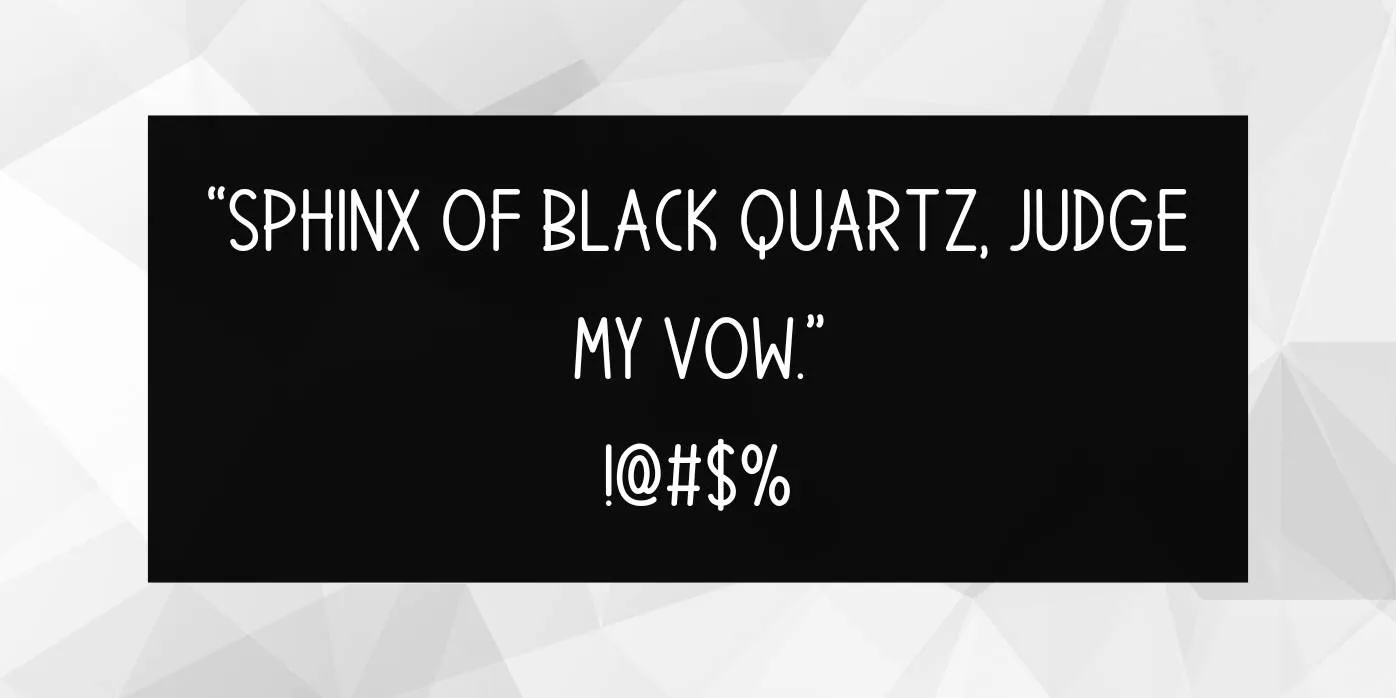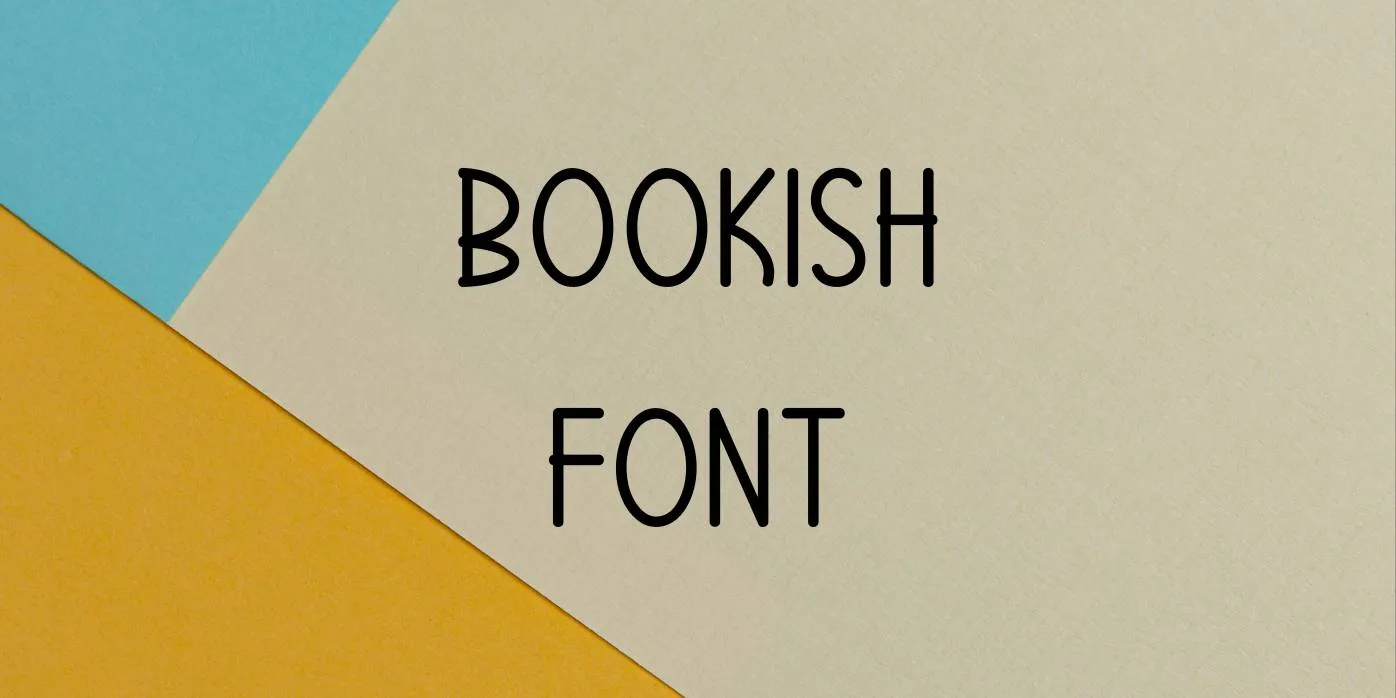
Bookish Font
Bookish Font was designed by the famous designer Md Shohail Bhuian. The characters of this texture are designed in such a way that they are bold enough to be easily readable. This typeface has very unique glyphs that can prove beneficial for your design or projects. This typeface file also support any software like Canva, Photoshop, Adobe Illustrator, PowerPoint, Microsoft Excel, MS Word, Autocad, and a lot more.